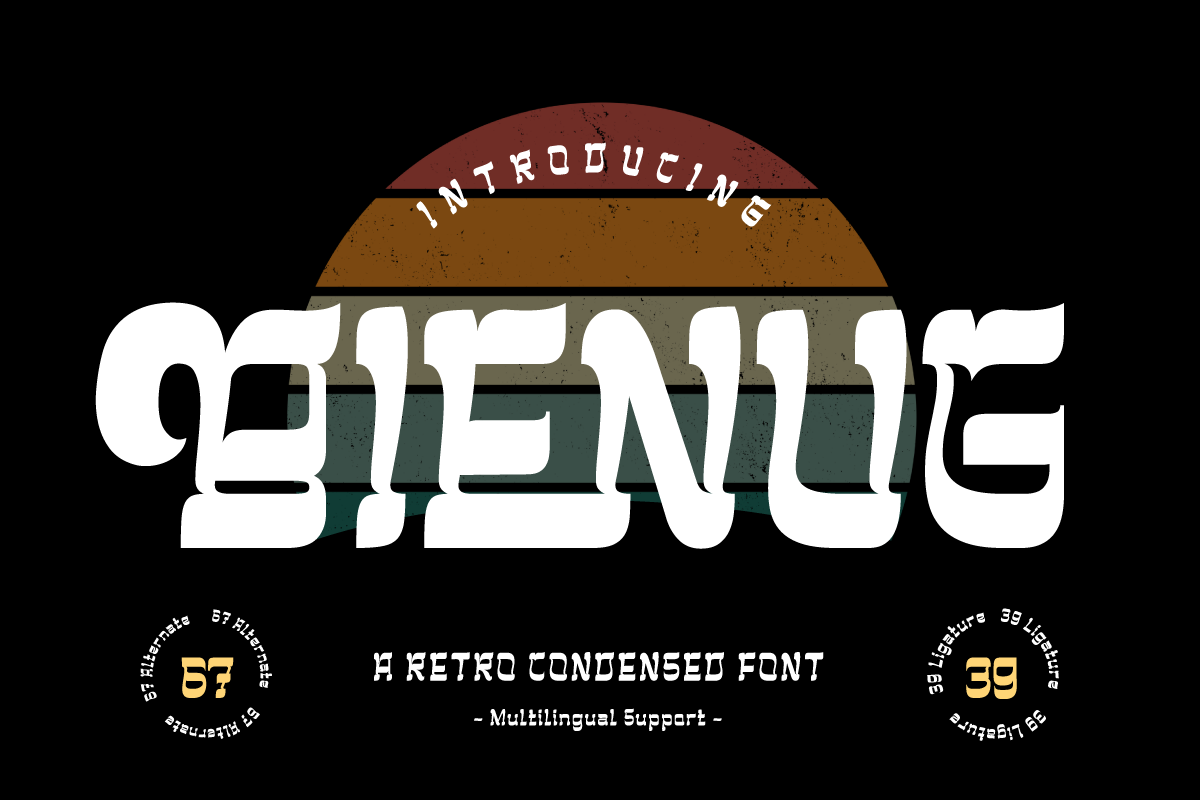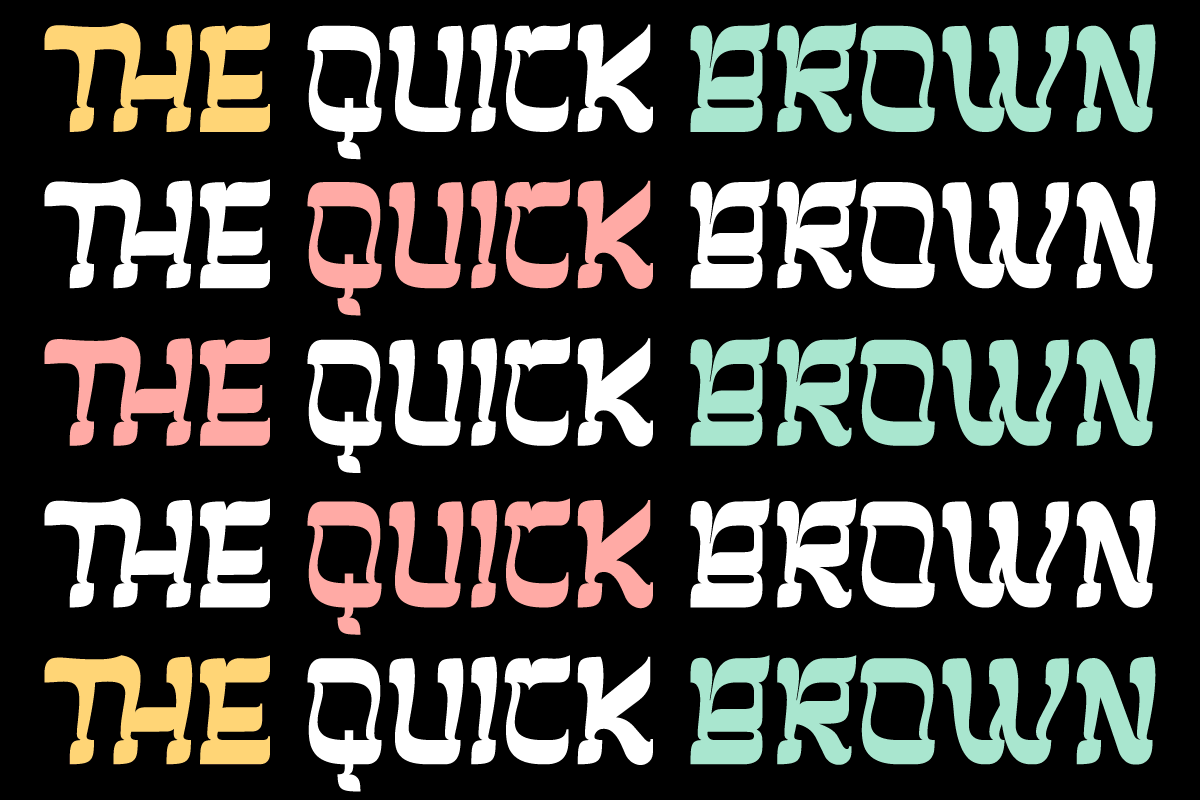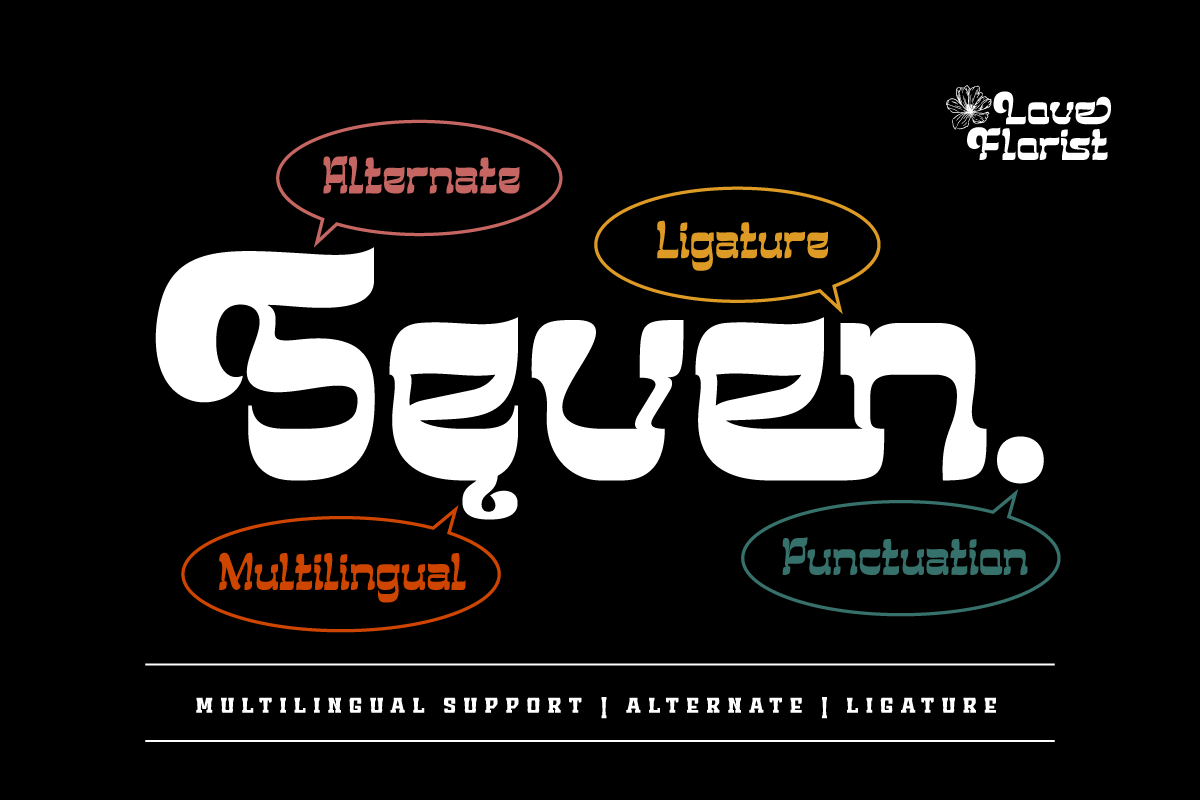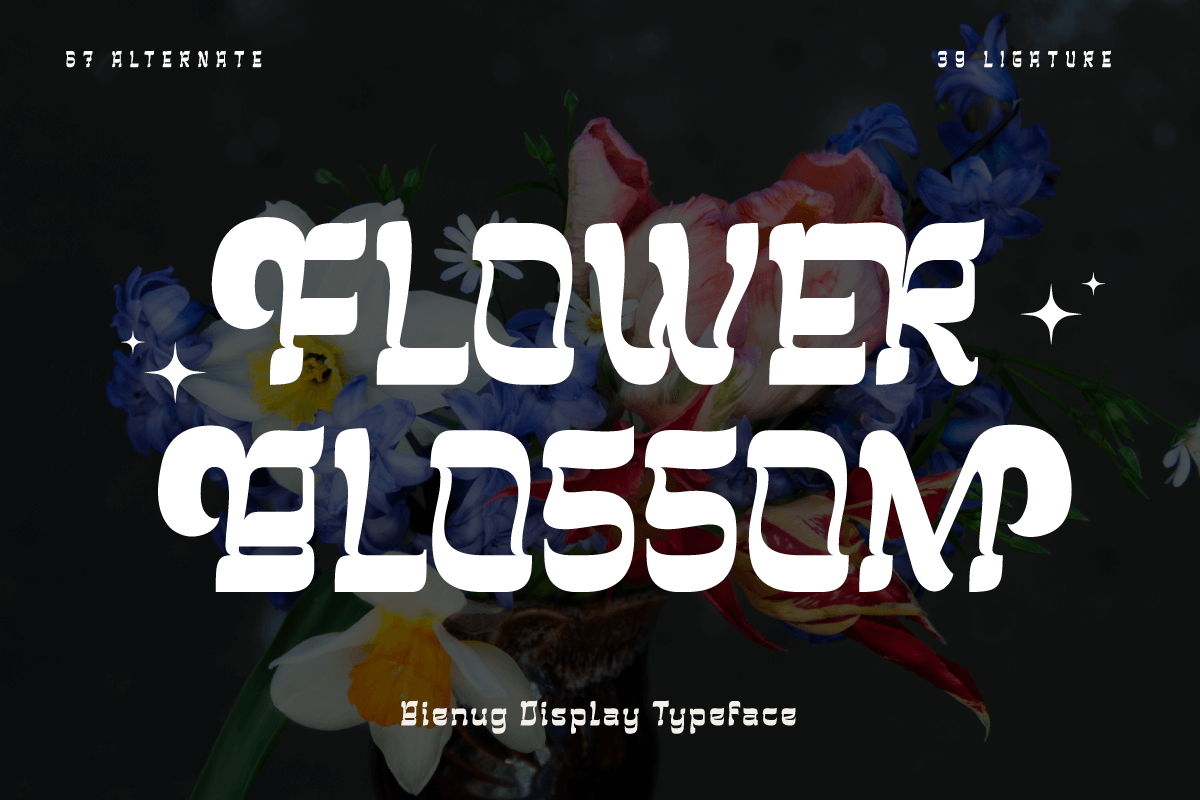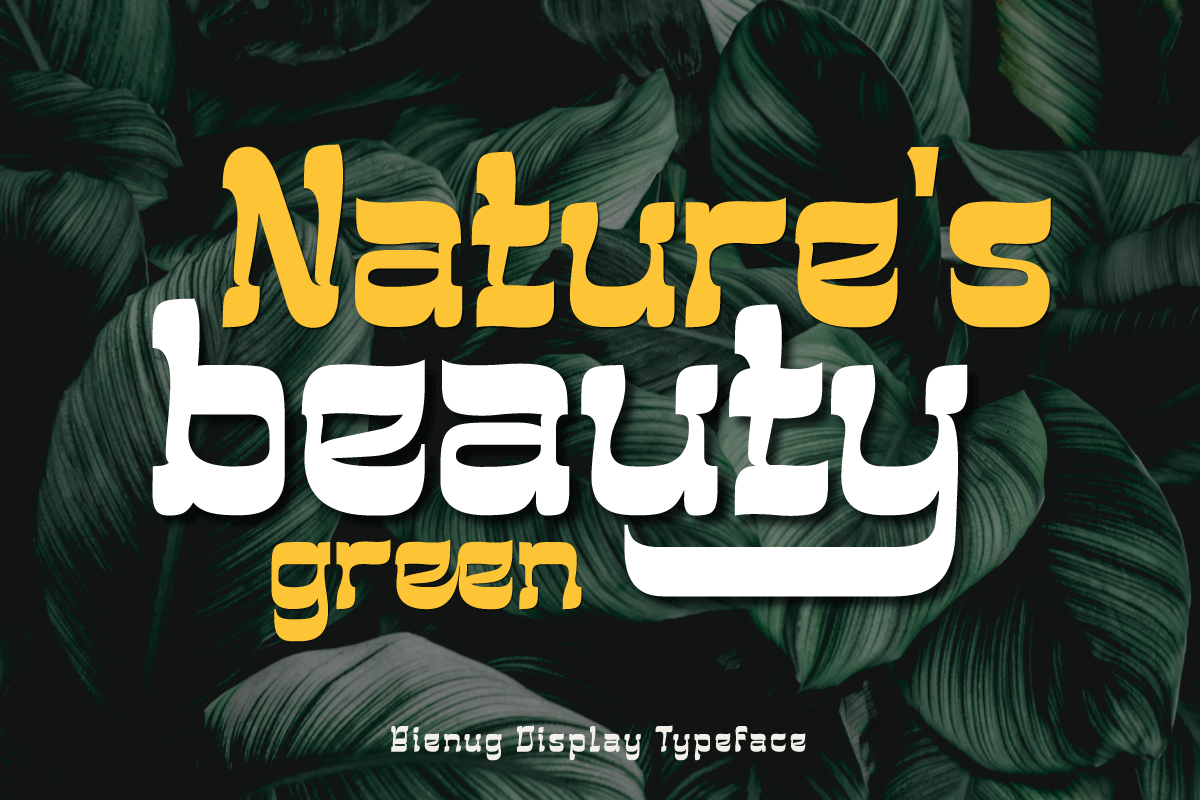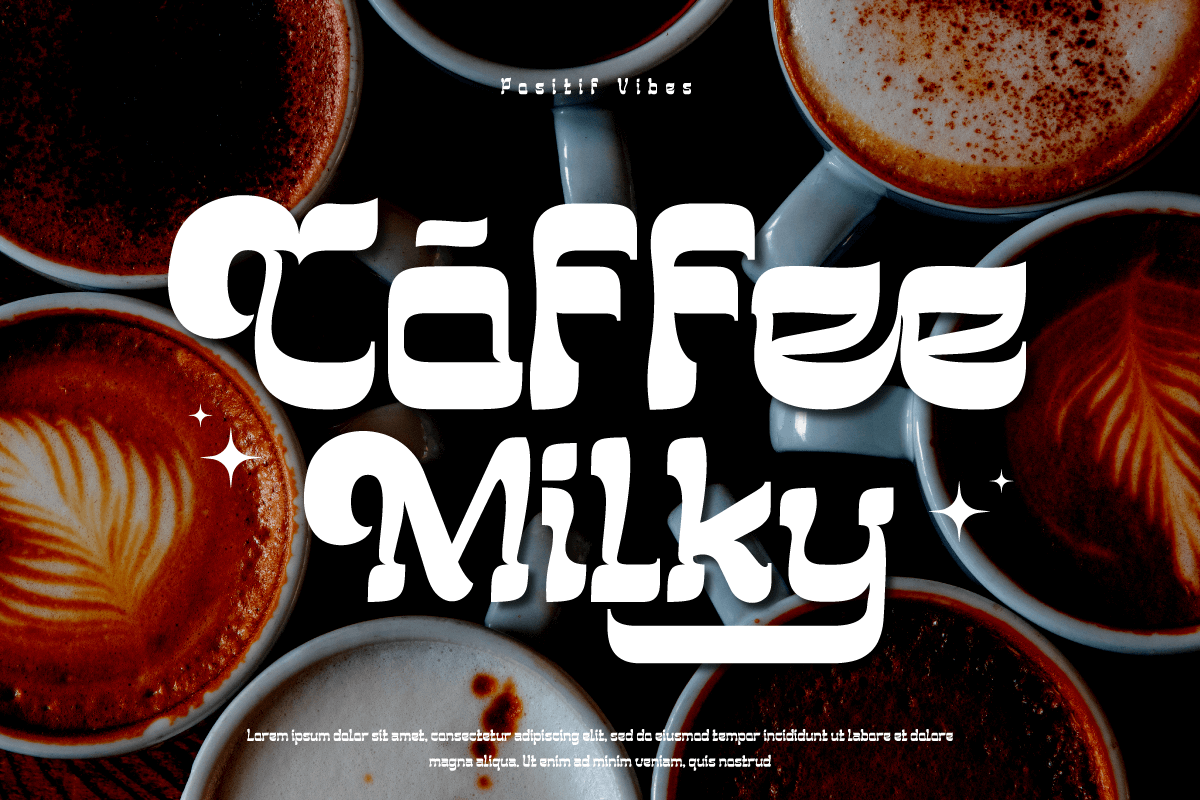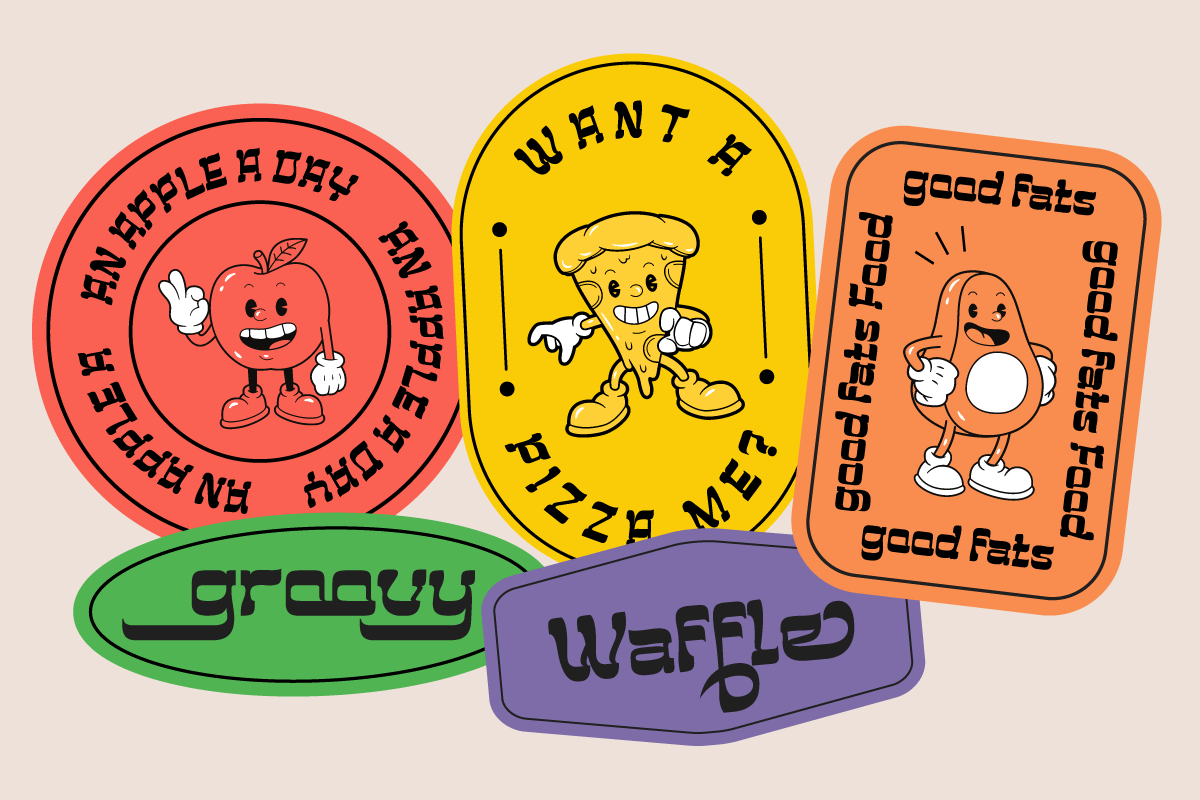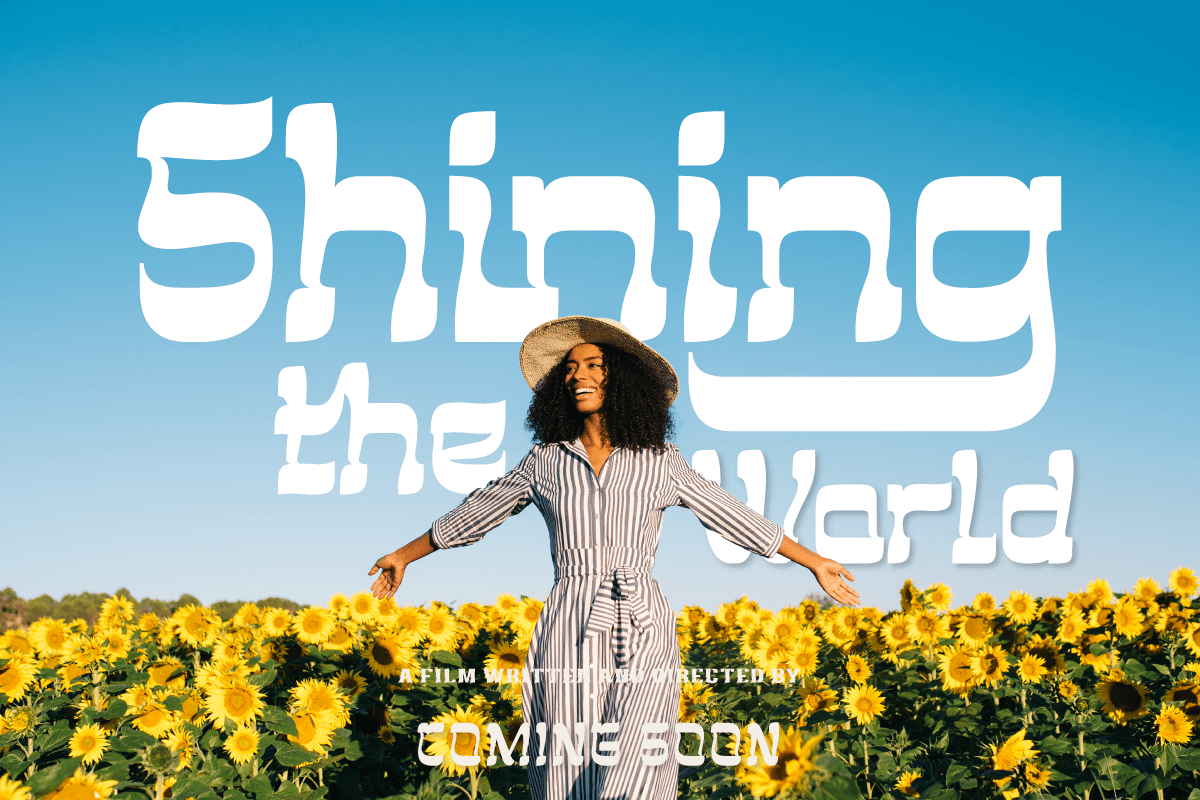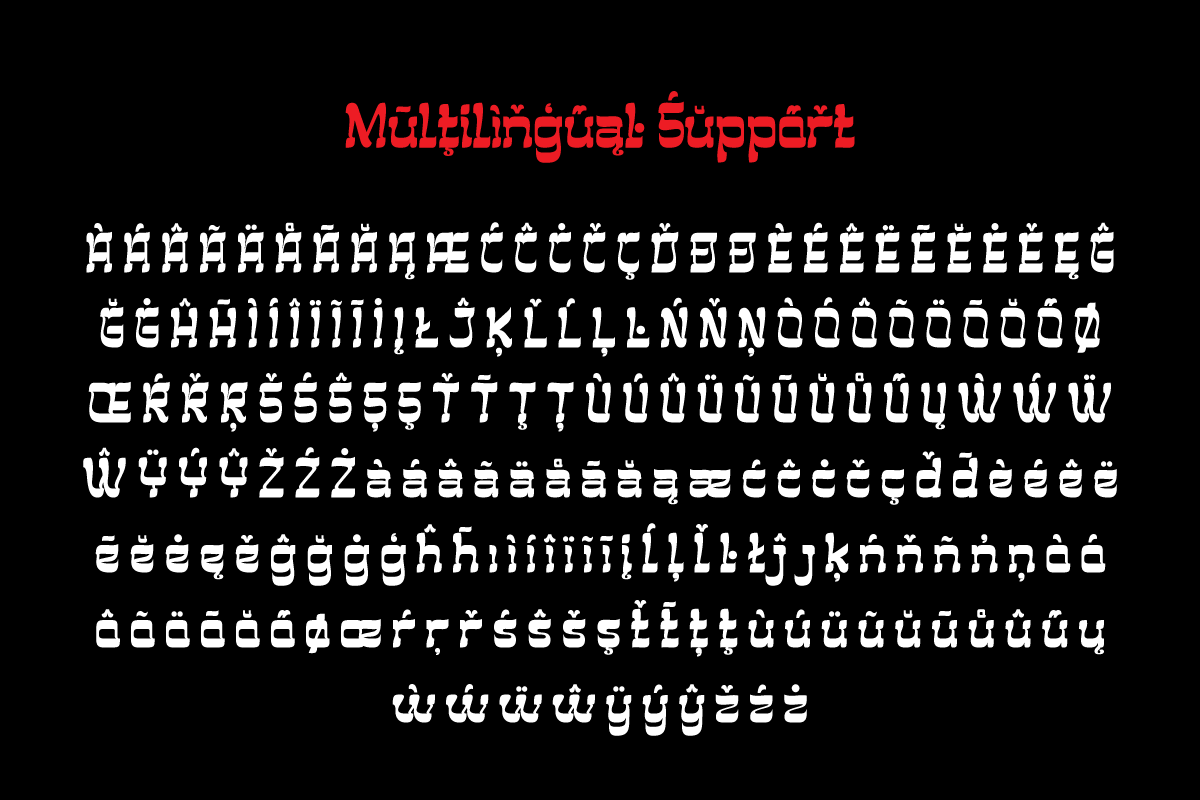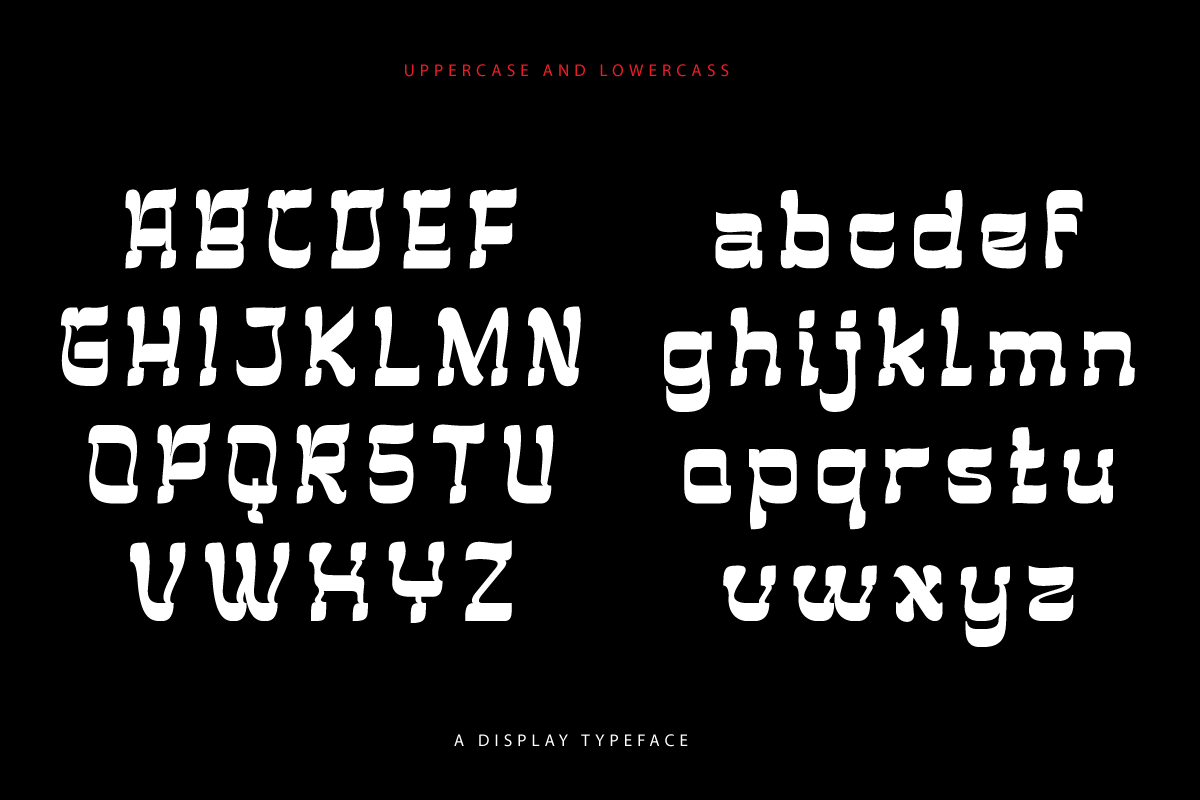
5. BIENUG | Serif Classic Modernism
BIENUG | Serif Classic Modernism
Welcome to a world of elegance and grace with BIENUG, the unrivaled classic serif font. Designed specifically for projects with a classic modernism theme, this font is the perfect solution for bringing a stunning, classic touch to your designs.
With ligature and alternate features, BIENUG provides unlimited creative freedom. You can combine unique character variations to create an interesting look that is different from the others. Available in a variety of styles, this font lets you explore different nuances and moods in each design.
In addition, BIENUG supports multilingualism, enabling you to convey messages fluently in multiple languages. There are no limitations in reaching an international audience with this font.
Enhance your designs with the beauty and elegance of BIENUG. Make an unforgettable impression with subtle details and strong characters. Add a touch of classic modernism to your project and present a stunning visual experience.
Explore the BIENUG collection now and find power in the beauty of this classic serif. Let this font be your loyal partner in creating eye-catching and memorable designs.